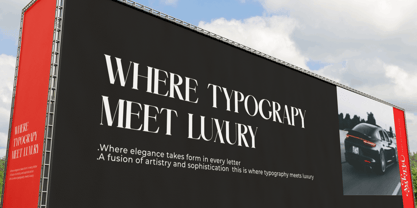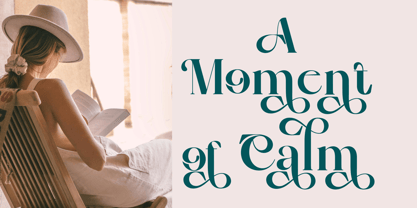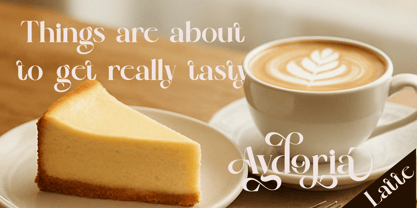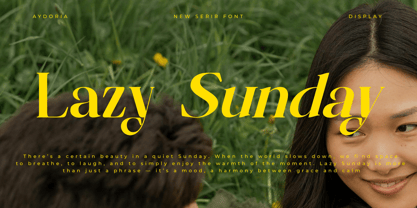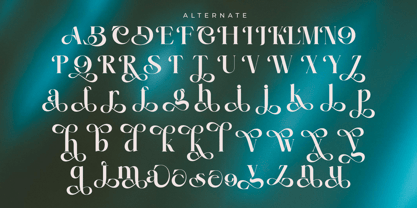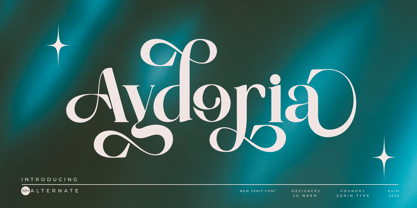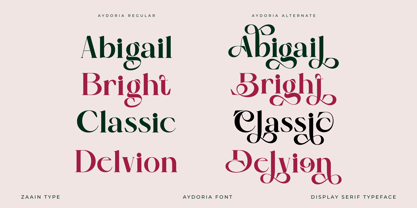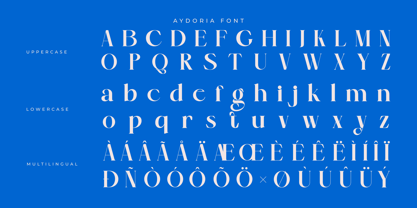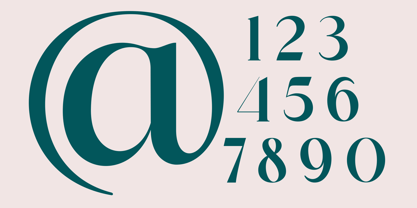
Aydoria
by Zaain Type
The Aydoria Font Family was designed by Ju Naen and published by Zaain Type. Aydoria contains 2 styles and family package options.
Aydoria is an elegant serif font that blends classic sophistication with a modern touch. Each curve is crafted with a perfect balance of subtle contrast and refined serif details, creating a look that feels both timeless and graceful. Perfect for luxury branding, editorials, premium packaging, and fashion design, Aydoria brings a captivating character to every word. It exudes a sophisticated, refined, and timeless aura, making it an ideal choice for designers who seek to infuse their work with a high-end aesthetic